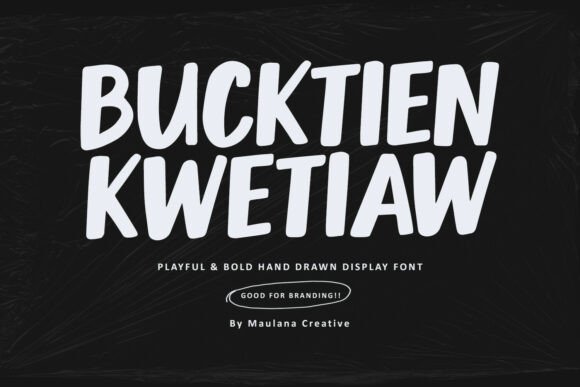
Get Ready to Unleash Your Creativity with Bucktien Kwetiaw Font
You’ve just landed the most exciting design project of your career – a new food truck brand that’s going to shake up the city’s culinary scene. The energy is palpable, and your mind is racing with ideas. You know exactly what’s missing – a font that screams fun, vibrancy, and personality. That’s where Bucktien Kwetiaw Font comes in, a display font designed to make your designs pop.
This handcrafted font features thick, irregular strokes and a charmingly playful baseline that’s sure to captivate your audience. Whether you’re working on bold logos, eye-catching social media graphics, or eye-catching packaging, Bucktien Kwetiaw Font provides a professional yet approachable feel that’s hard to resist. Its heavyweight ensures maximum readability, making it the perfect choice for headlines that need to shout. As a designer, you’ll appreciate the versatility and character that Bucktien Kwetiaw Font brings to your projects.
Bucktien Kwetiaw Font Key Features
- Font Family: Bucktien Kwetiaw
- Unique Characteristics: This font features a unique, handwritten style with a mix of modern and traditional elements, making it suitable for various design projects, including logos, branding, and editorial content.
Bucktien Kwetiaw Font Review
At first glance, the Bucktien Kwetiaw Font seems like a great option for those looking for a unique and exotic font. ✨ It’s definitely eye-catching, and its bold lines and curves are sure to make a statement. The font’s design is reminiscent of traditional Asian calligraphy, which adds to its charm. ✨ The font’s versatility is also a major plus, as it can be used for a wide range of applications, from logos to signage to body text.
However, as with any font, there are some limitations to consider. ⚠️ One of the main issues is the font’s lack of consistency. The letterforms are not always perfectly rounded, which can make the font look a bit rough around the edges. Additionally, the font’s x-height is not always uniform, which can affect readability. ⚠️
Design Considerations
- Lack of consistency in letterforms
- Non-uniform x-height
- May not be suitable for small text sizes
Overall, I would give the Bucktien Kwetiaw Font a solid 3 out of 5 stars. While it’s a great option for making a statement, its limitations make it less suitable for everyday use. With some refinement, this font has the potential to be truly great.
Tips: Use Bucktien Kwetiaw Font for titles or headings to add a unique touch to your designs. Experiment with different font sizes and colors to create visual interest.
Bucktien Kwetiaw Font is ideal for:
- Title and heading